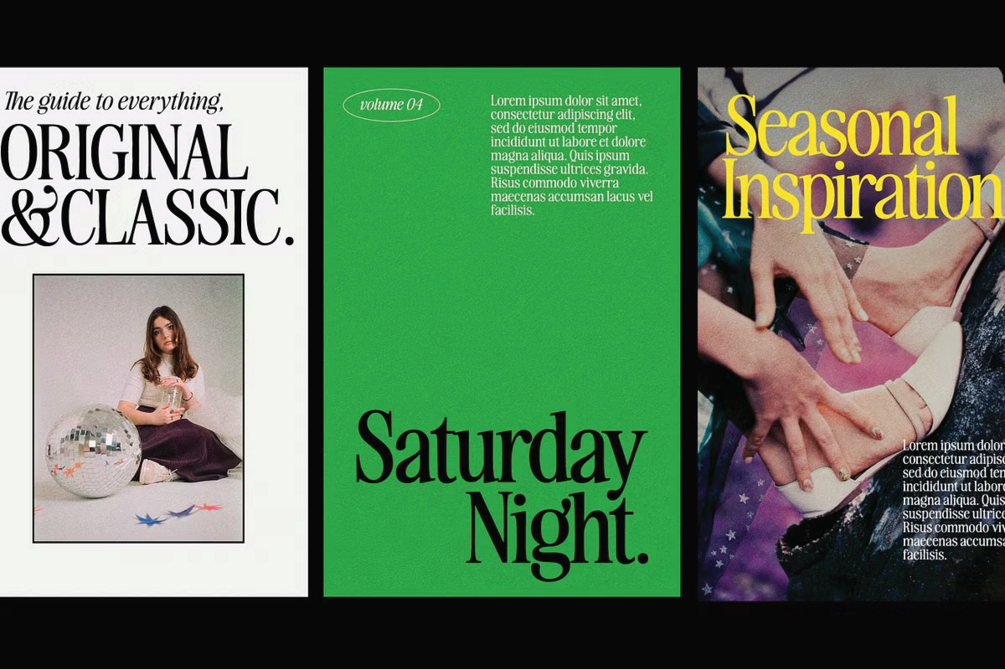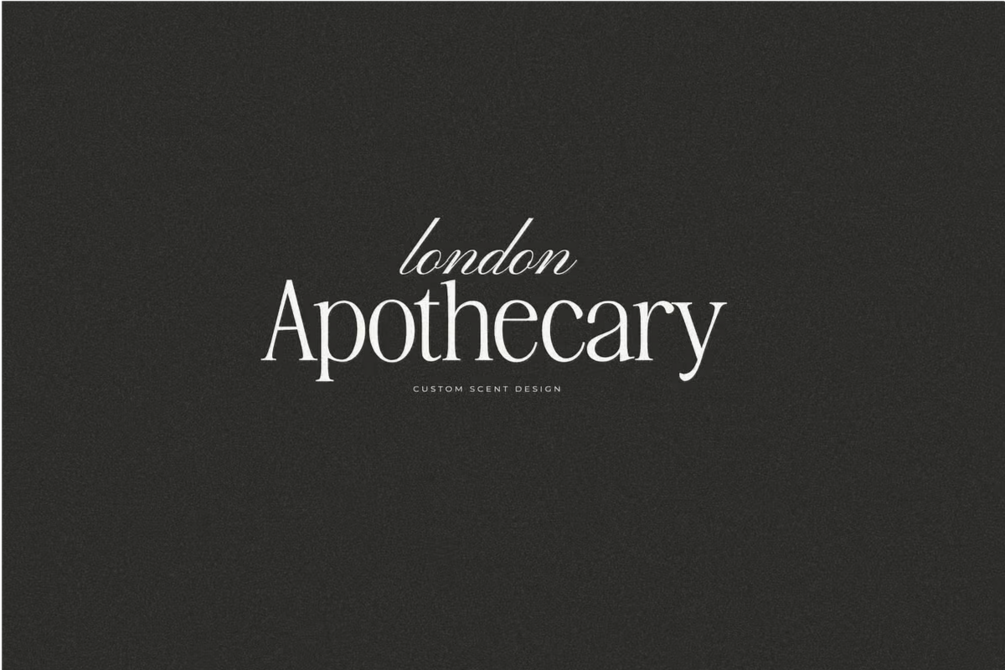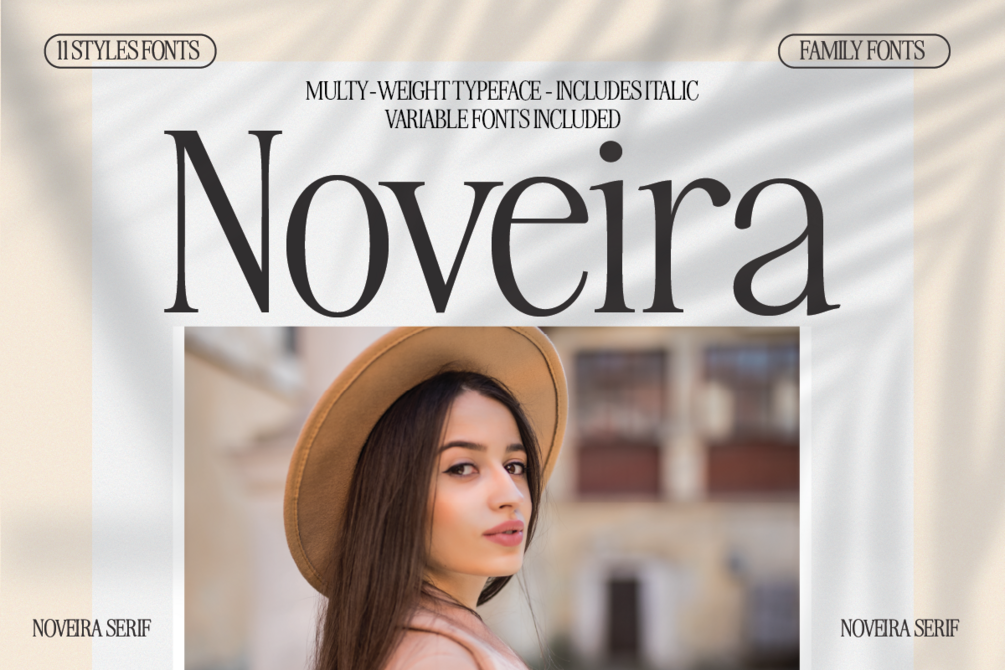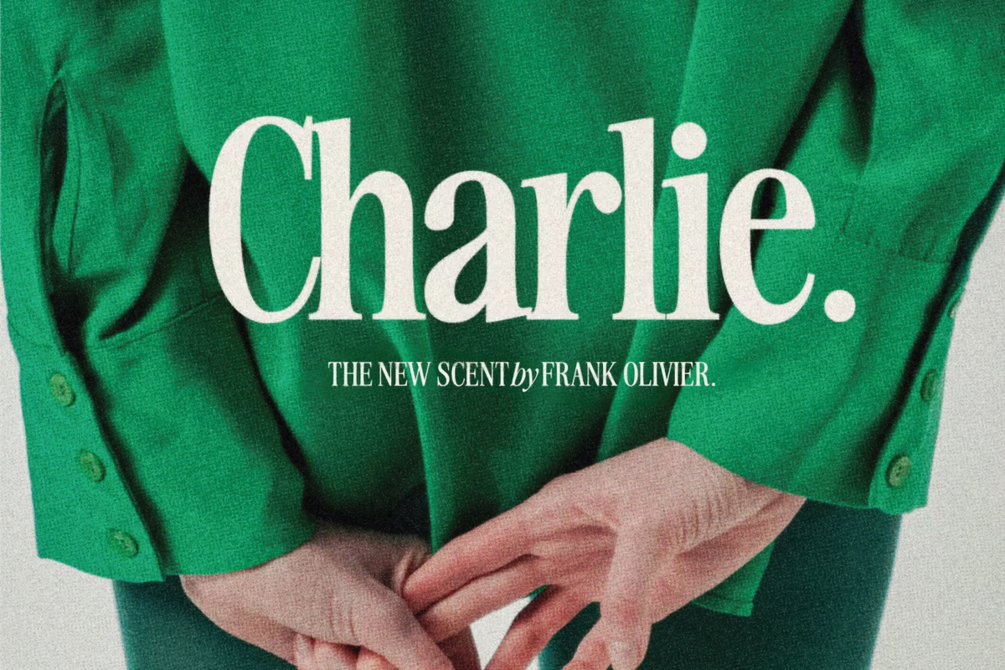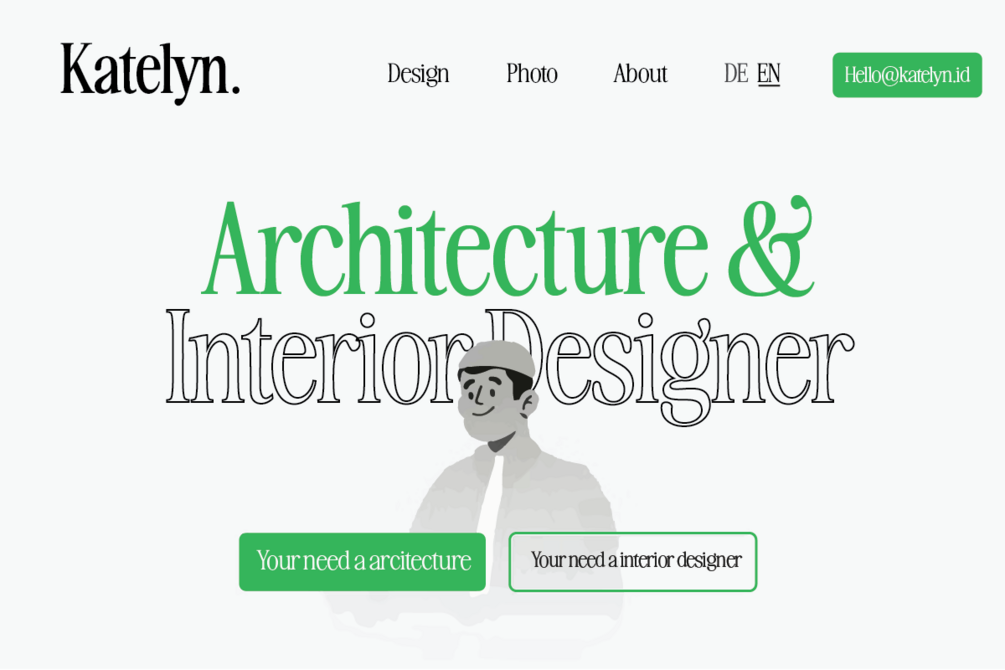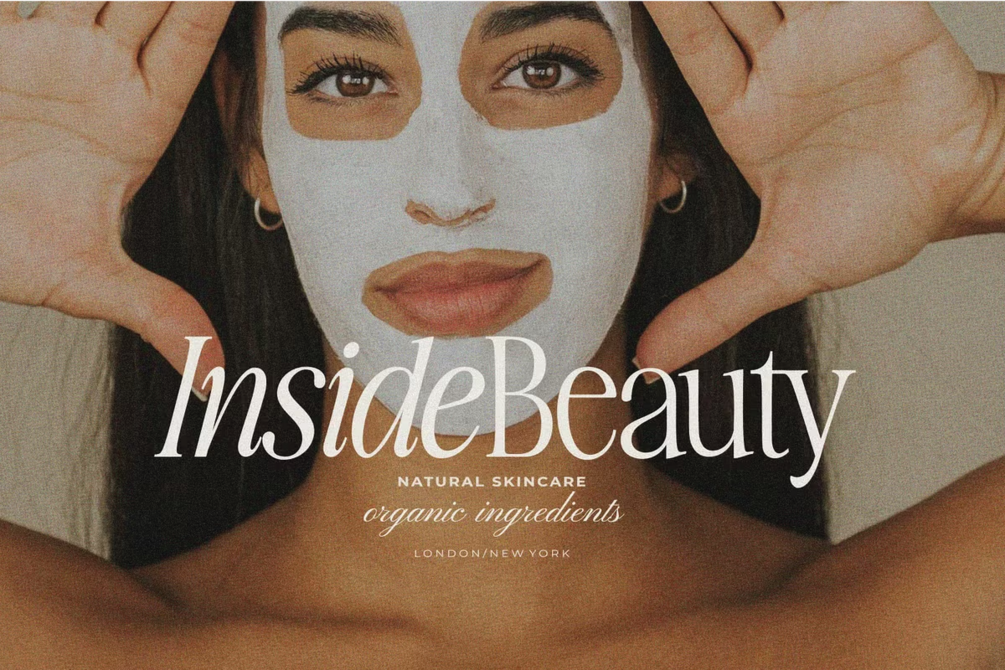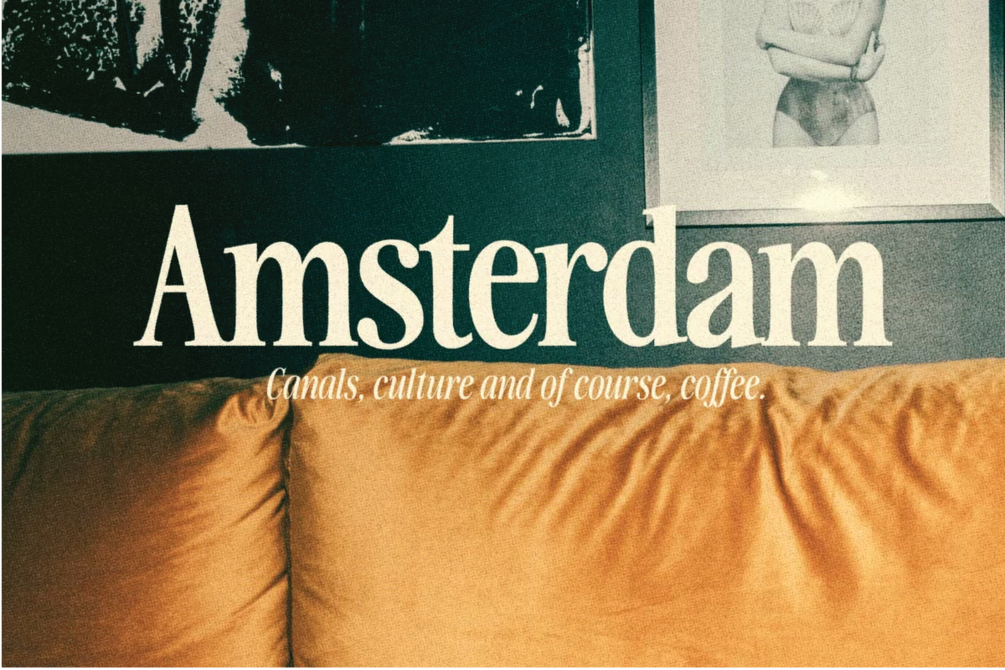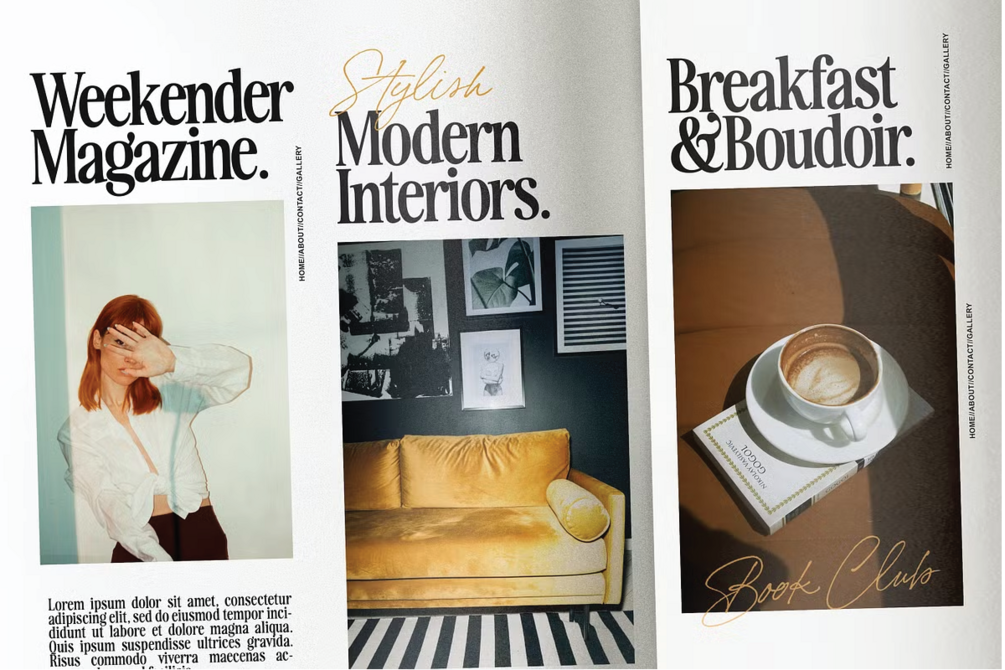
Noveira Serif
Noveira Serif font. This font would be perfect for photography, watermarks, social media posts, advertisements, logos & branding, invitations, product design, labels, stationery, product packaging, special events, and other projects.